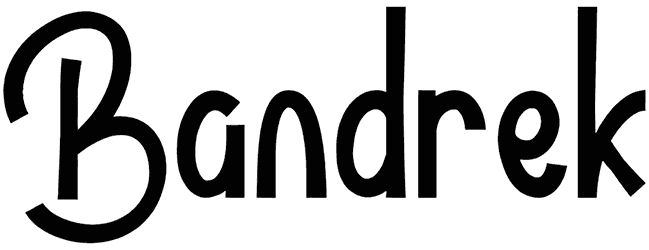
We would like to strongly advise you to pick up a script font such as Bandrek in your animation posters, book covers, magazines, stickers, or applications, and notice how it makes them look appealing to the audience.
Aside from the undeniable fact that it doesn’t support numbers, it can widen your selection range by offering three styles. In addition, due to its rounded and chunky style, it can reinforce the sense of tenderness, momentum, or approachability in your projects.